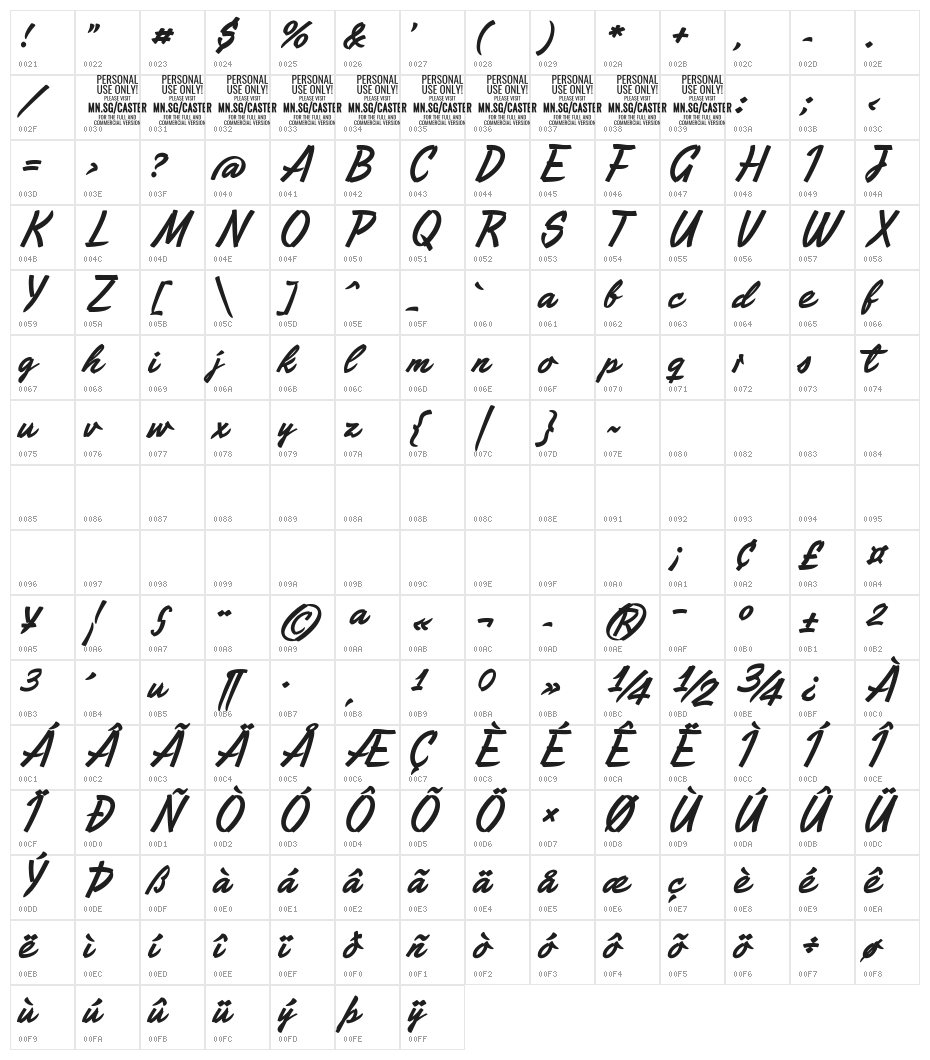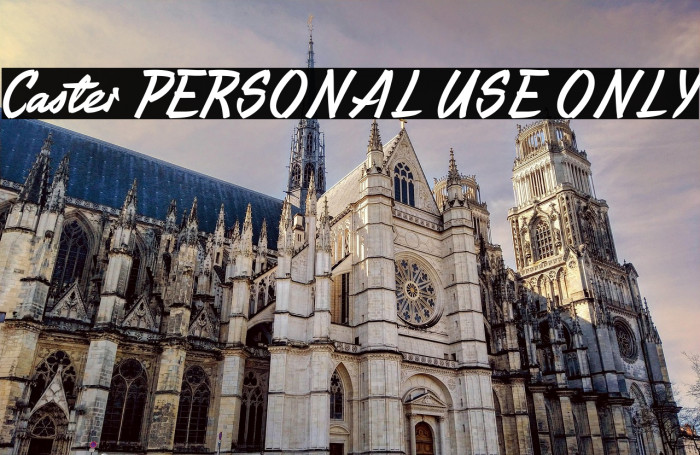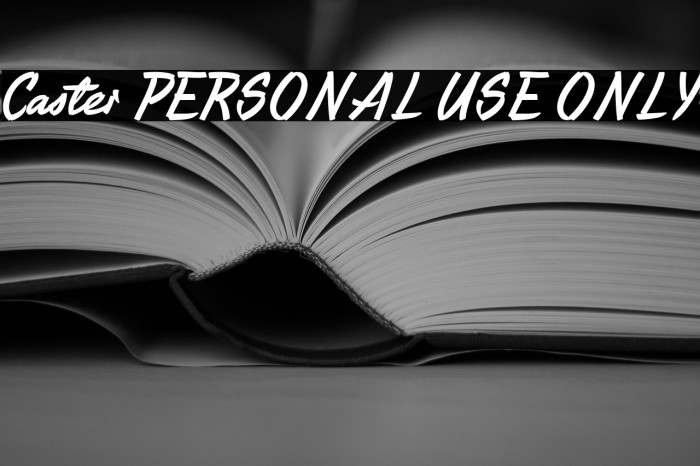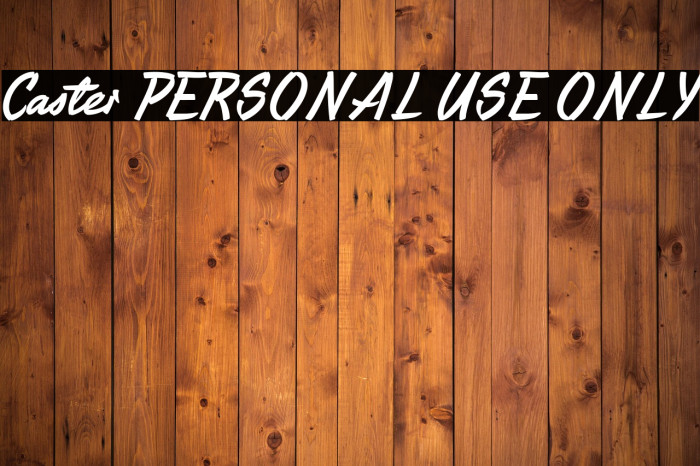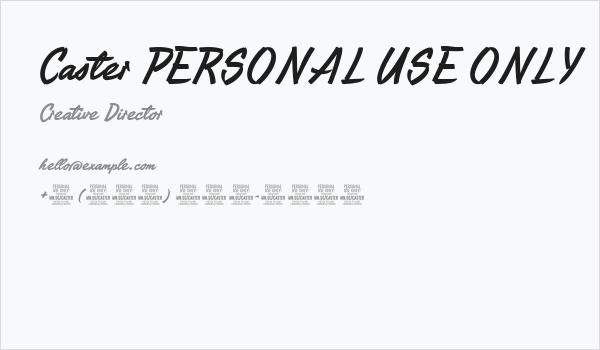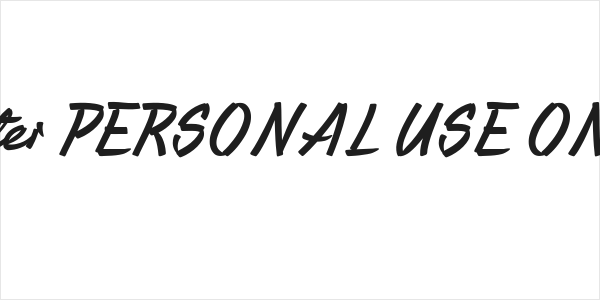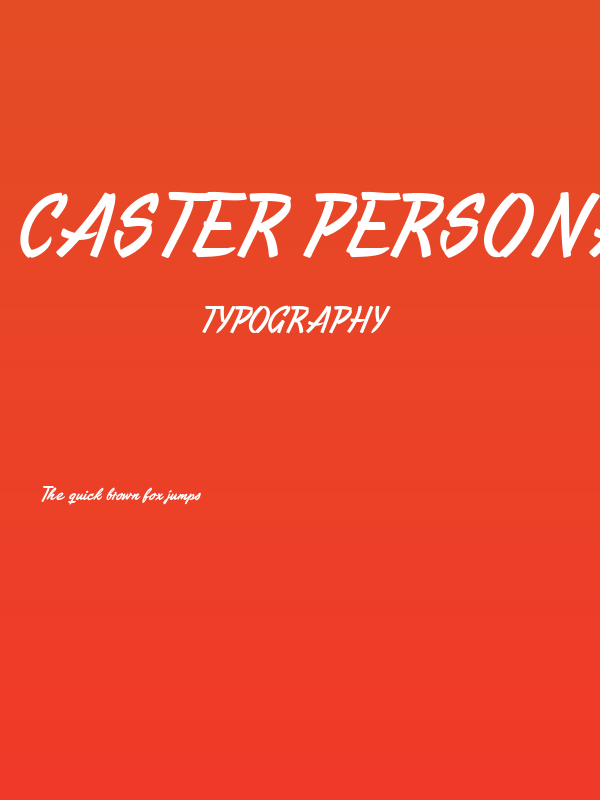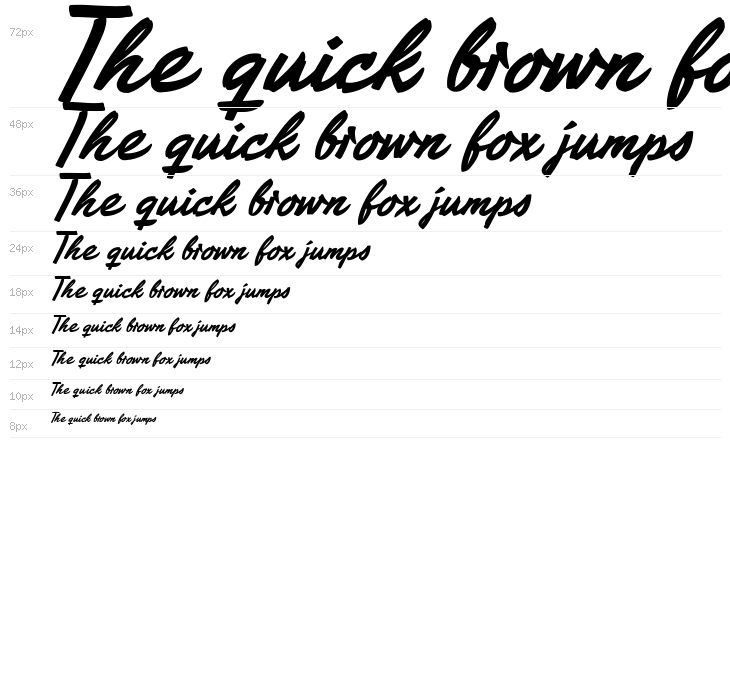
Caster PERSONAL USE ONLY Font
Caster PERSONAL USE ONLY Description
This font features a dynamic and fluid script style, characterized by its bold and expressive strokes. The letters are connected, creating a seamless flow that mimics natural handwriting. The uppercase letters are slightly more angular, adding a touch of elegance and sophistication, while the lowercase letters maintain a consistent rhythm and smoothness. The numerals and special characters are crafted to match the overall aesthetic, ensuring a cohesive look across all text. This font exudes a sense of creativity and personal touch, making it ideal for projects that require a handwritten feel.